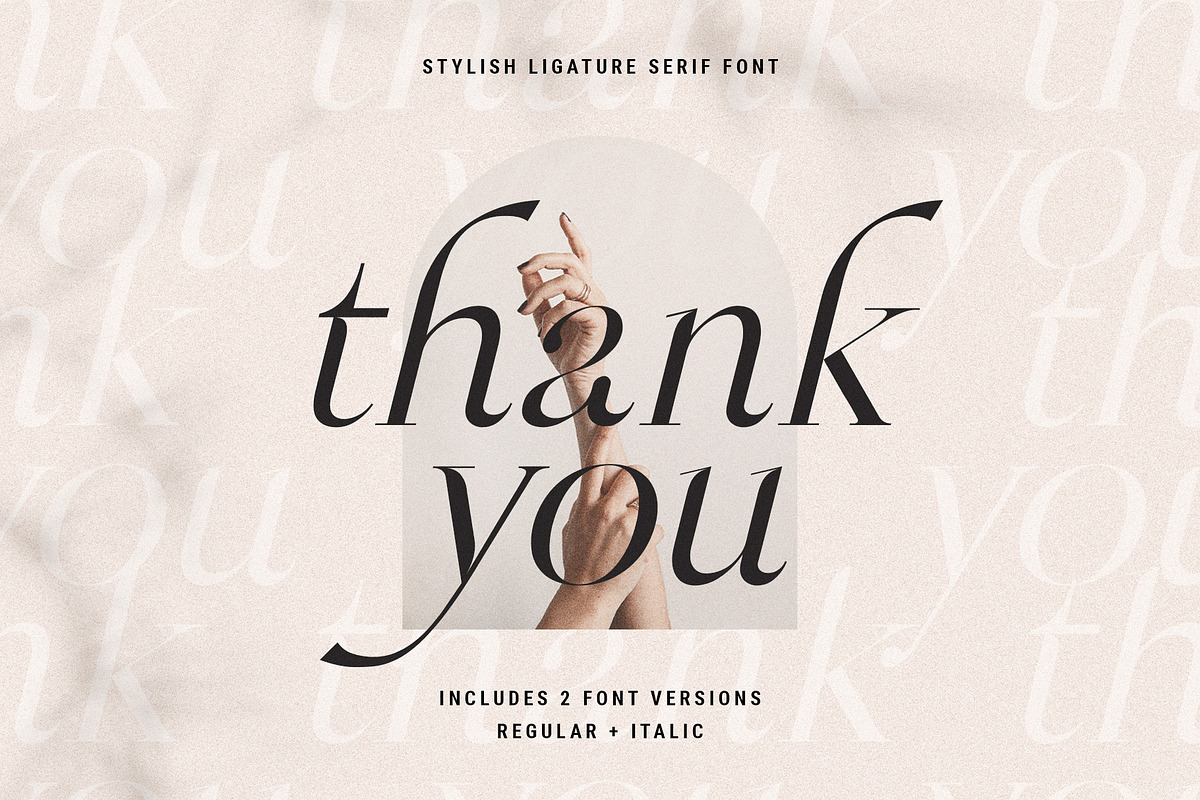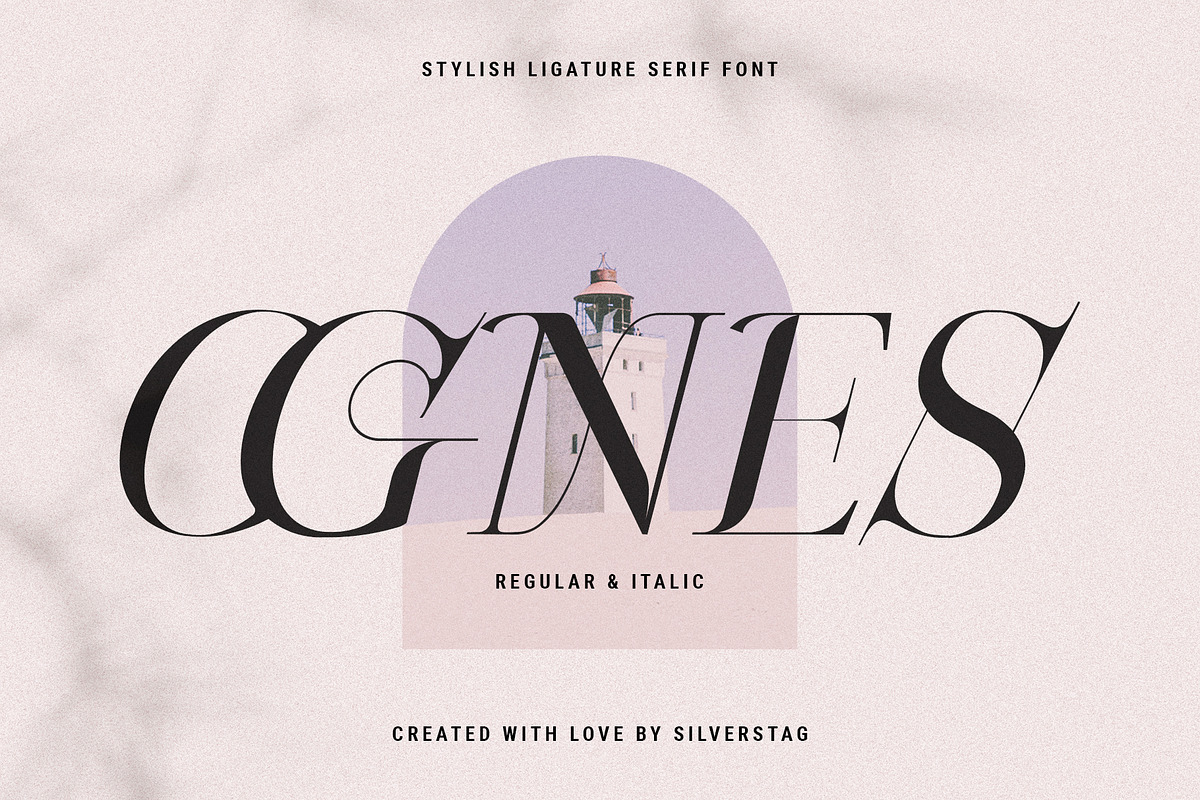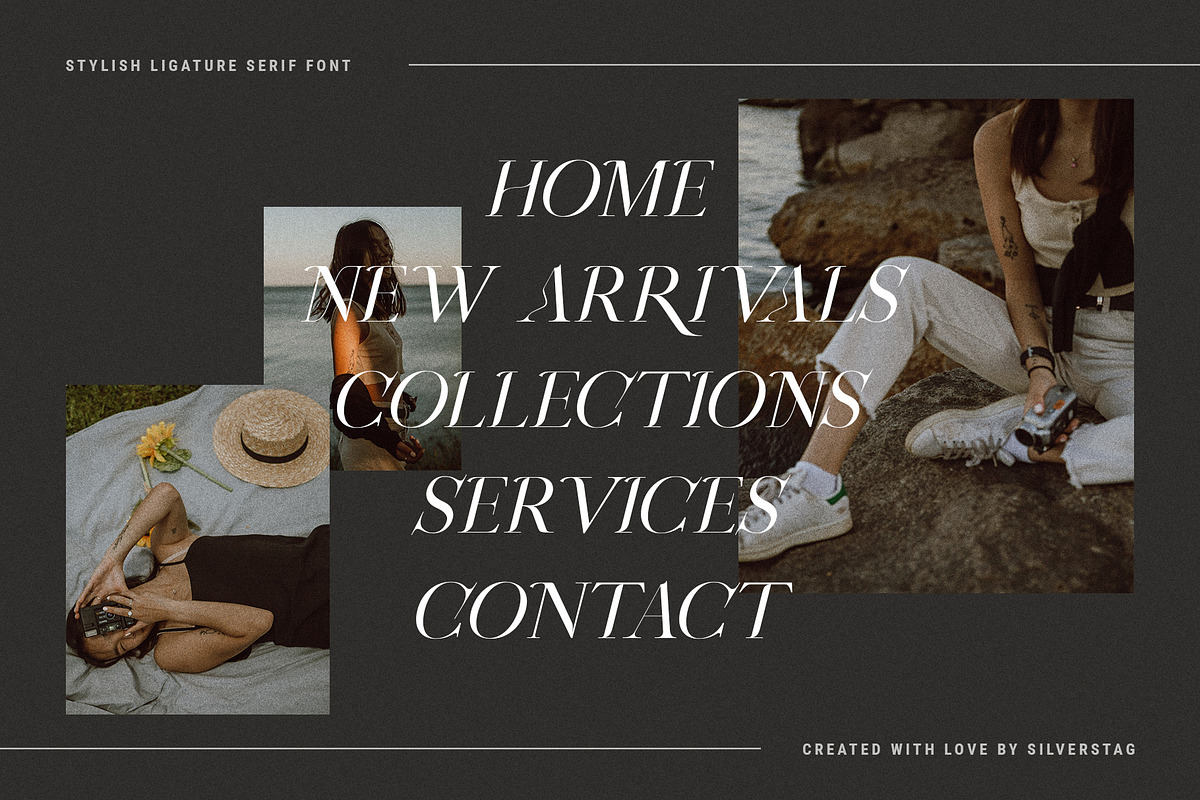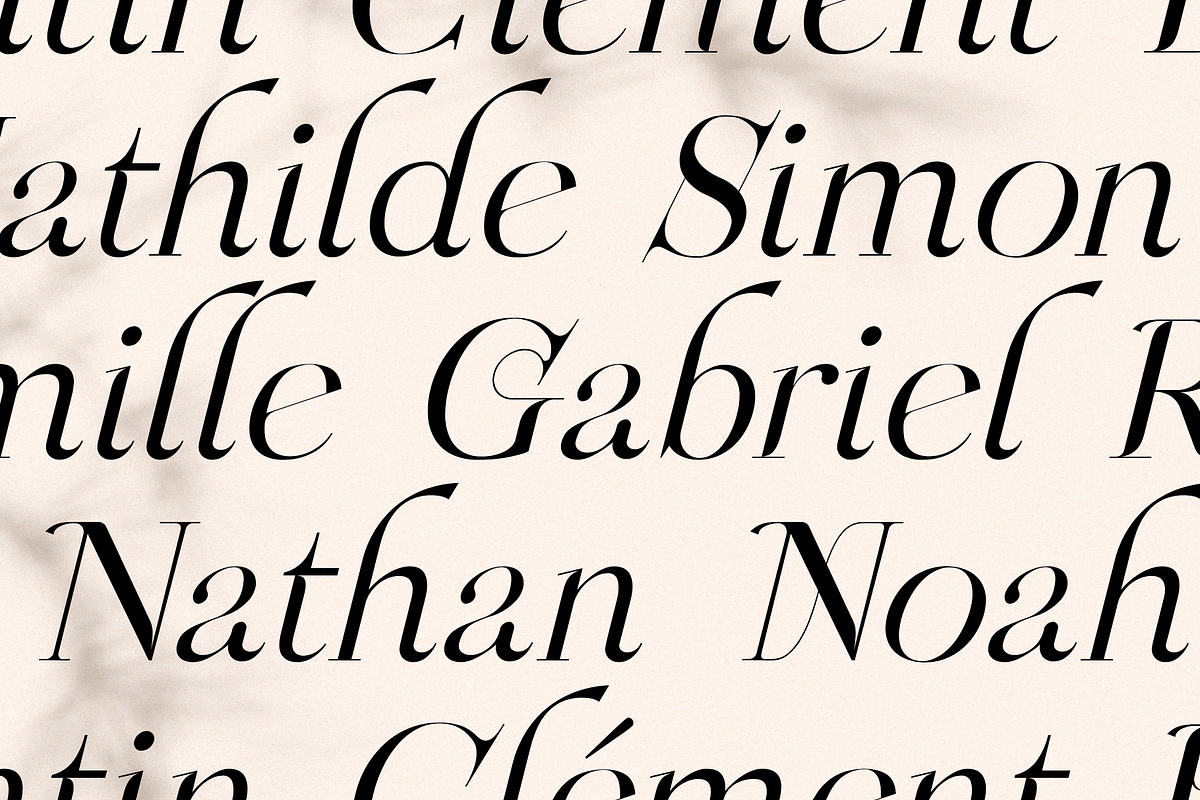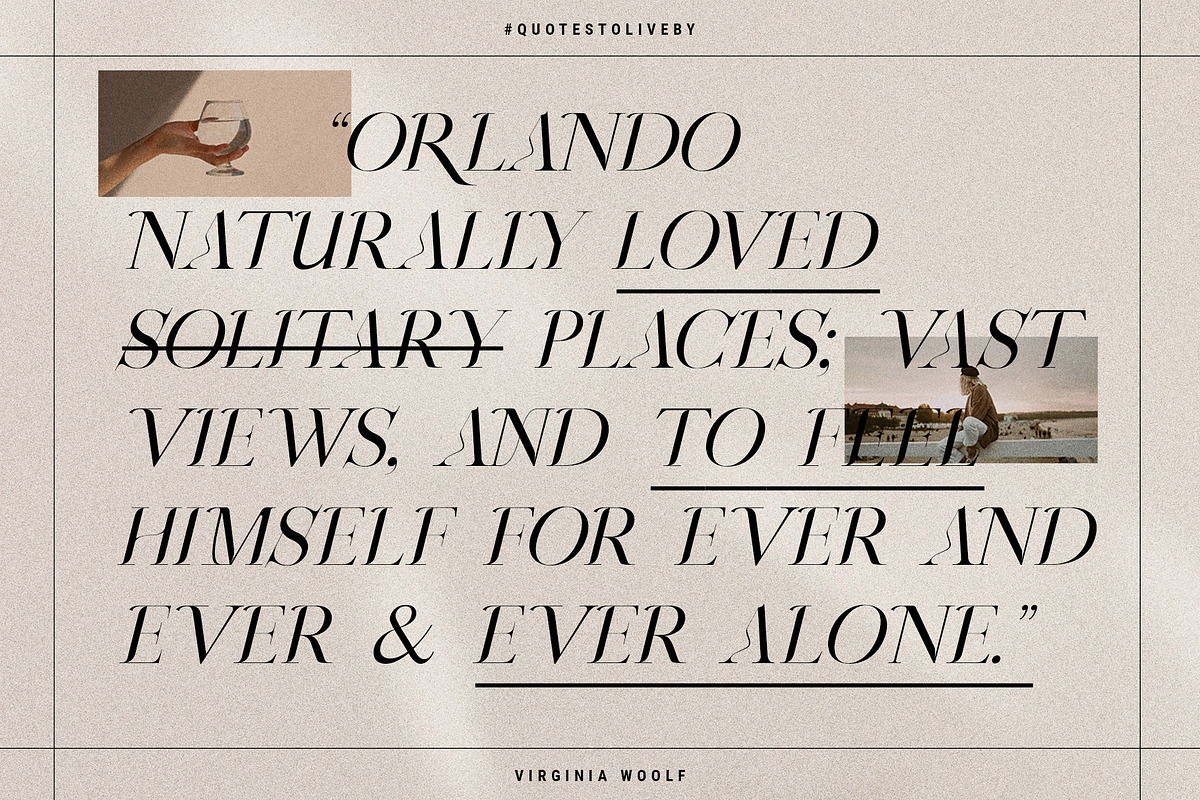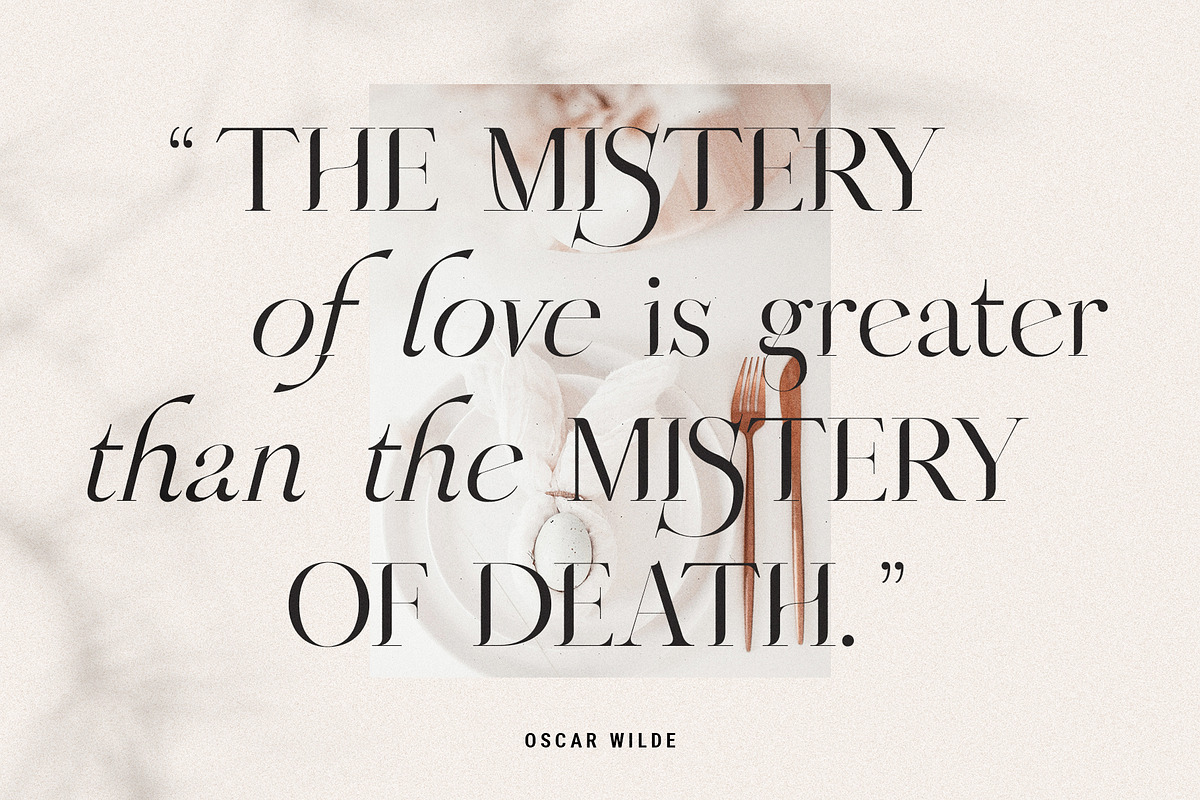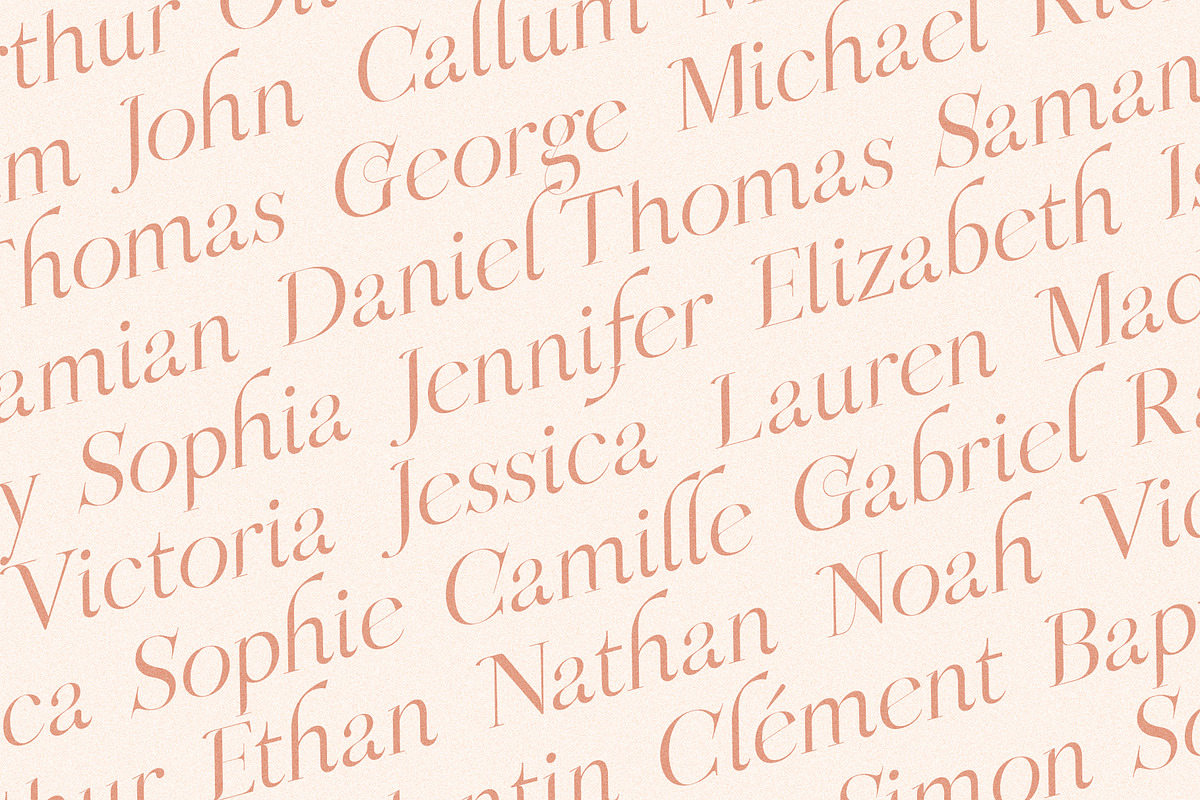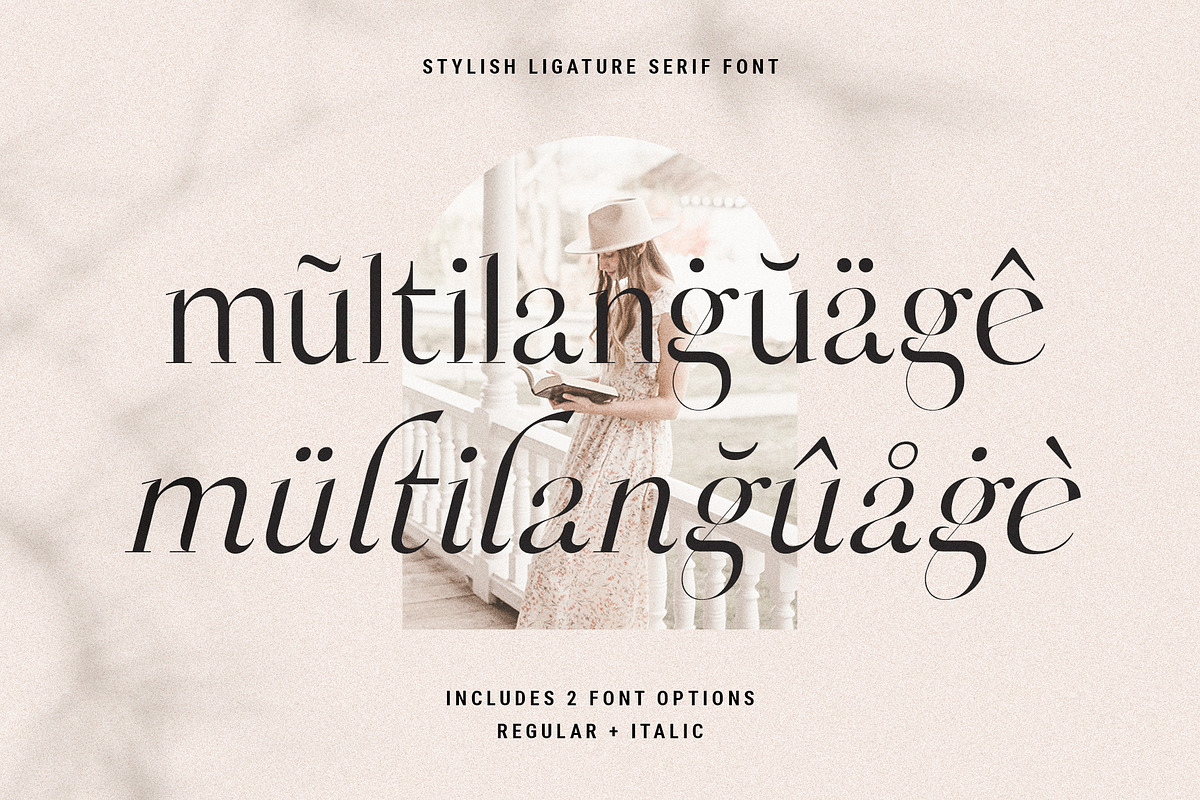
OGNES - Modern Ligature Serif Font
Hey everyone, I am happy to give you OGNES, a brand new ligature serif font inspired by unbeatable elegance and beauty of France! I am really proud to offer you my new chic font that comes with over 100 ligatures and alternate letters. Each of the standard letters, ligatures, and alternates was handcrafted and made to fit other letters without exception. All letters are 100% unique with soft rounded edges that will give you a different look than any other serif font.
So, whether you have a client that needs a new chic logo, or you're designing your social media posts. Maybe you're preparing your wedding mood board, stationery, invitations, OGNES Ligature font is just perfect for all of that and more. Check out the photos I have prepared for you to see what you can do with it and happy creating!
- 90+ Ligatures & Alternate letters
- Lowercase and Uppercase letters
LANGUAGE SUPPORT:
The following letters are included: A À Á Â Ã Ä Å C Ç D Ð E È É Ê Ë I Ì Í Î Ï N Ñ O Ø Ò Ó Ô Õ Ö U Ù Ü Ú Û W Ẃ Ŵ ẄẀ Y Ý Ÿ Ỳ Ÿ Æ Œ ß Þ þ in uppercase and lowercase so Vicky Christina supports a huge number of languages.